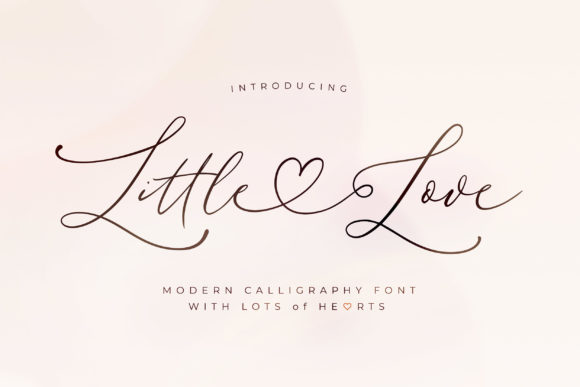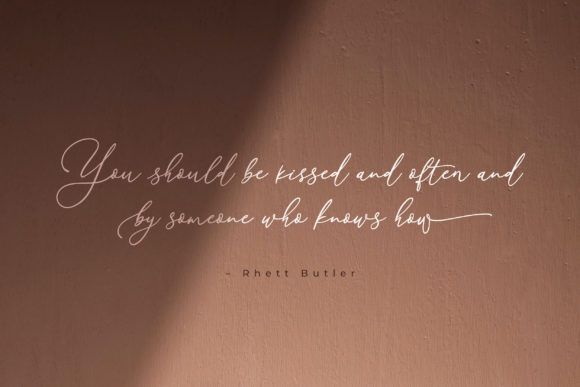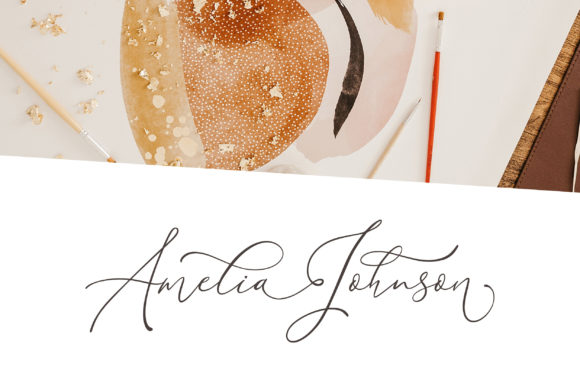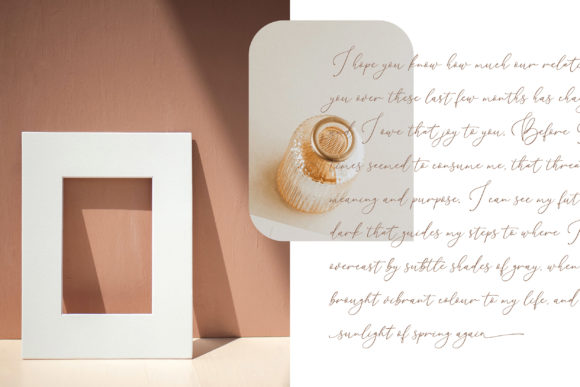
Little Love Font: Graceful Script for Wedding & Logo Design
About the Little Love Font
Presenting Little Love Font, a unique and stylish typeface that will make your work stand out. Little Love is a refined and graceful script font. This font is PUA encoded which means you can access all of the glyphs and swashes with ease! It has a clean, thin and smooth vibe and it will be a hit for any design that you want to add it to.
Little Love’s delicate nature makes it ideal for projects requiring elegance and sophistication, such as wedding invitations, branding for luxury goods, or feminine product packaging. Its thin strokes, however, limit its readability in body text or UI elements. Avoid using it for large blocks of text or applications needing high legibility at small sizes.
The font’s refined personality pairs well with clean sans-serif fonts like Lato or Open Sans for a balanced contrast, or a geometric sans-serif such as Montserrat for a modern feel. For a more luxurious aesthetic, consider pairing it with a classic serif like Garamond or Didot. Avoid pairing it with overly playful or bold fonts that might overshadow its subtle charm.
Little Love exudes a soft, romantic, and slightly whimsical energy. It’s best suited for projects that need a touch of elegance and grace, while maintaining a contemporary feel.
Little Love Font Usage Examples
Little Love Font Example